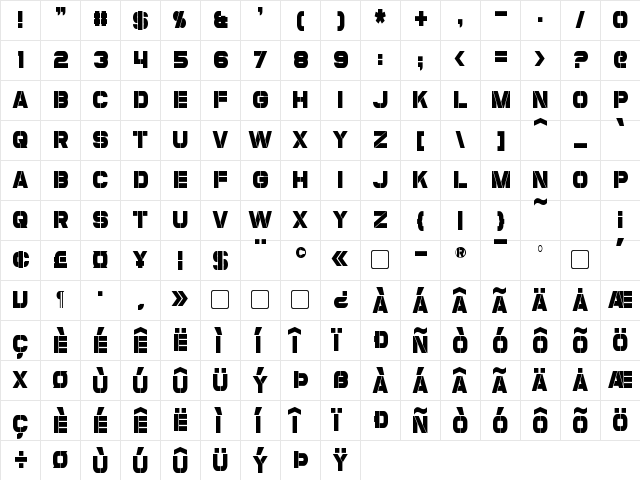
Coulson Condensed Regular
| Foundry | Neale Davidson |
| Designer | Neale Davidson |
Design Context for Coulson Condensed Typeface
Coulson Condensed is a composed and adaptable typeface that performs quietly and consistently across a wide range of design contexts. The condensed width makes it efficient for tight spaces without sacrificing legibility.